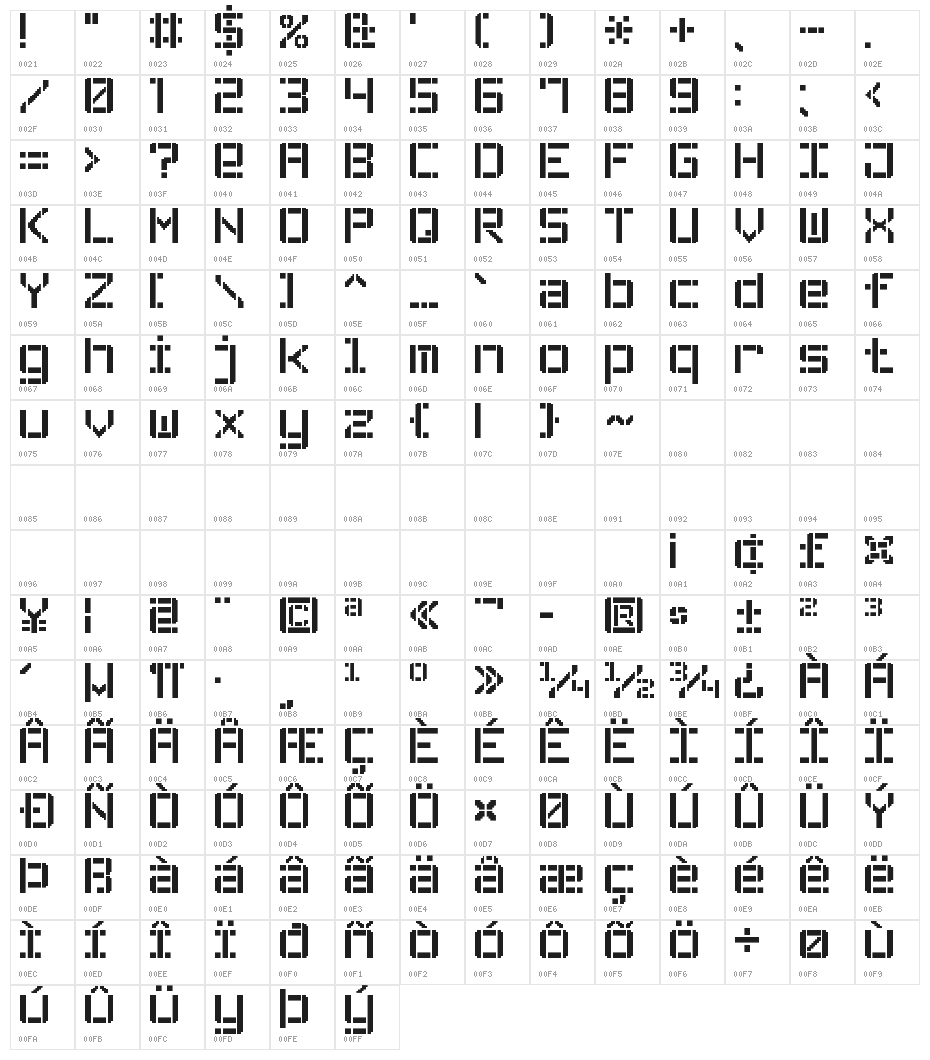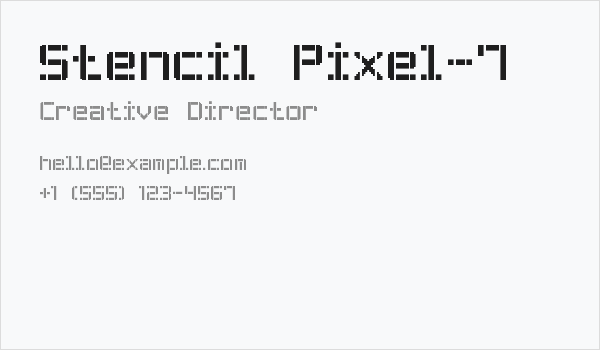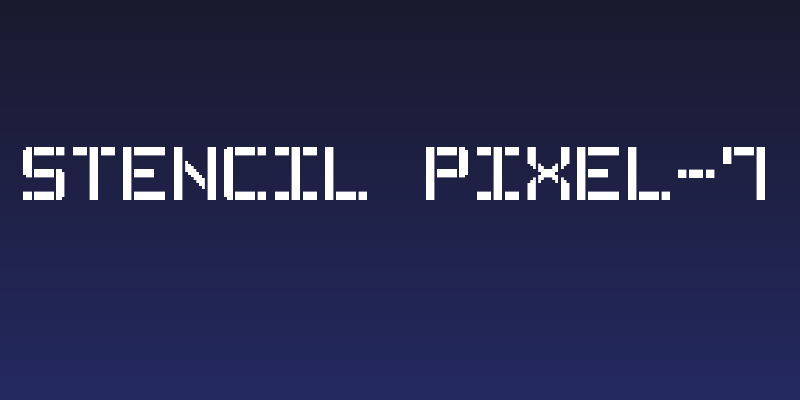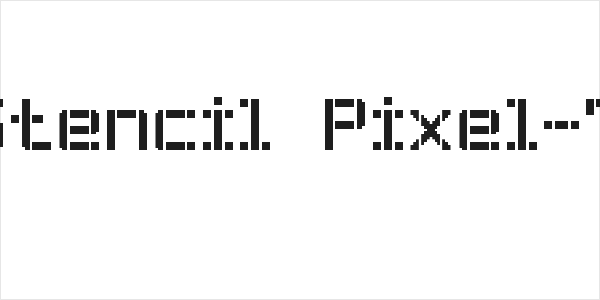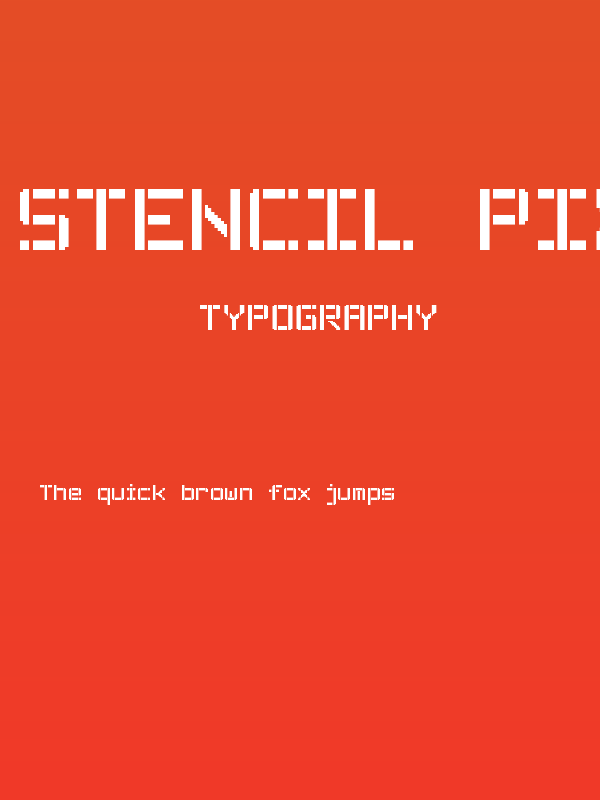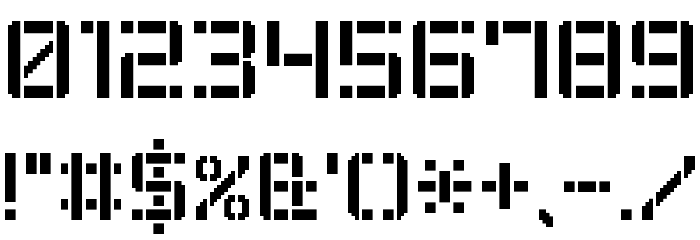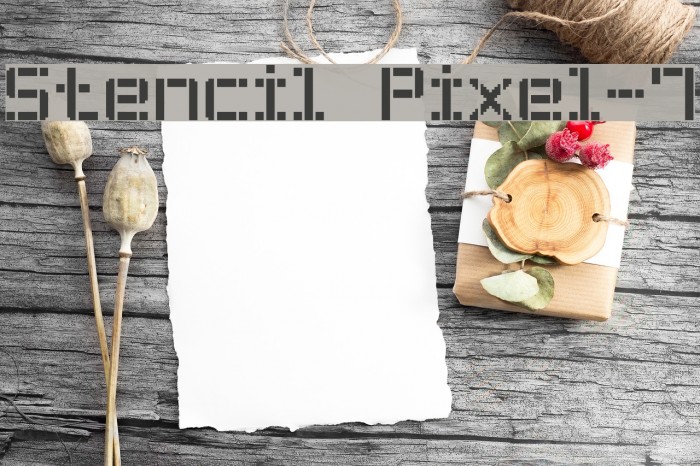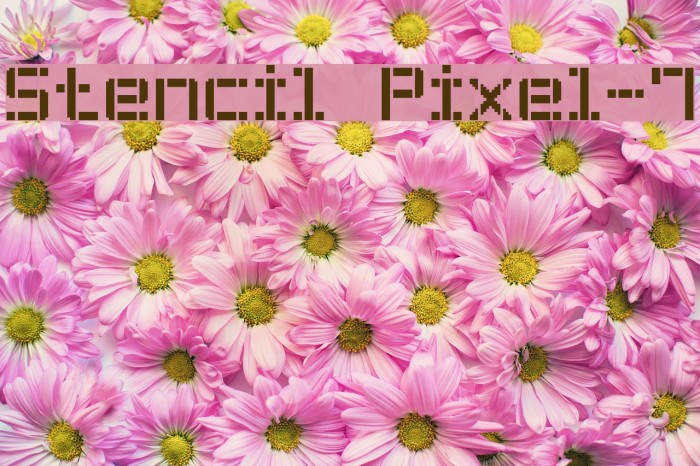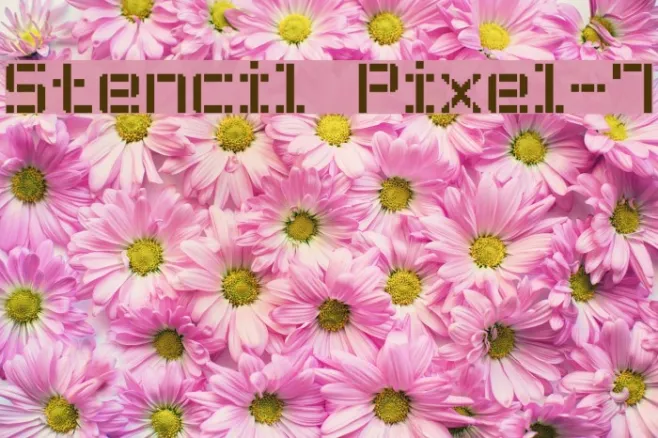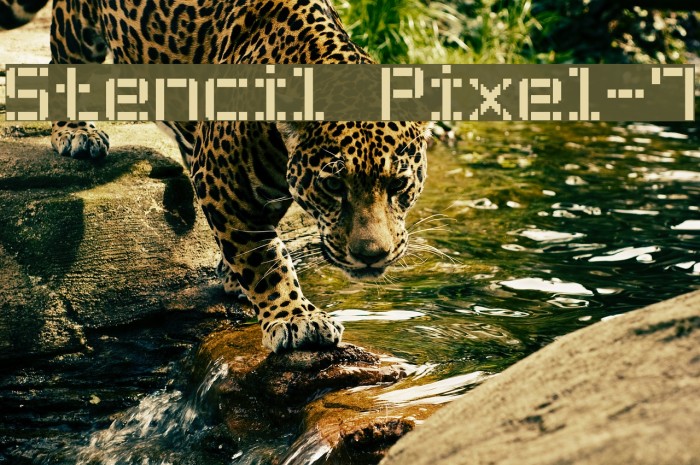
Stencil Pixel-7 Font
Stencil Pixel-7 Description
This font features a distinct pixelated and stencil-like design, combining the ruggedness of stencil cuts with the digital aesthetic of pixel art. Each character is composed of blocky, square shapes, giving it a retro, video game-like appearance. The uppercase and lowercase letters maintain a consistent height, enhancing its uniformity. The numbers and special characters follow the same pixelated style, ensuring a cohesive look across all glyphs. This font is highly legible, with clear separations between each character, making it suitable for digital displays and designs that require a bold, eye-catching typeface.
| Use Case | Headlines, Logos, Digital displays |
| Proposed Projects | Ideal for video game graphics, digital art projects, tech-themed posters, and any design requiring a retro or digital feel. |